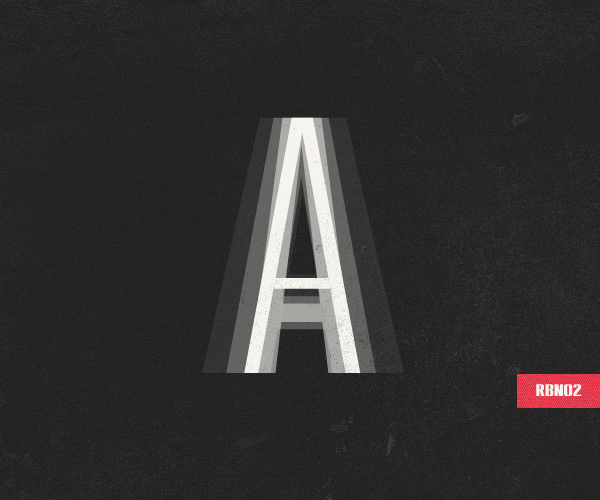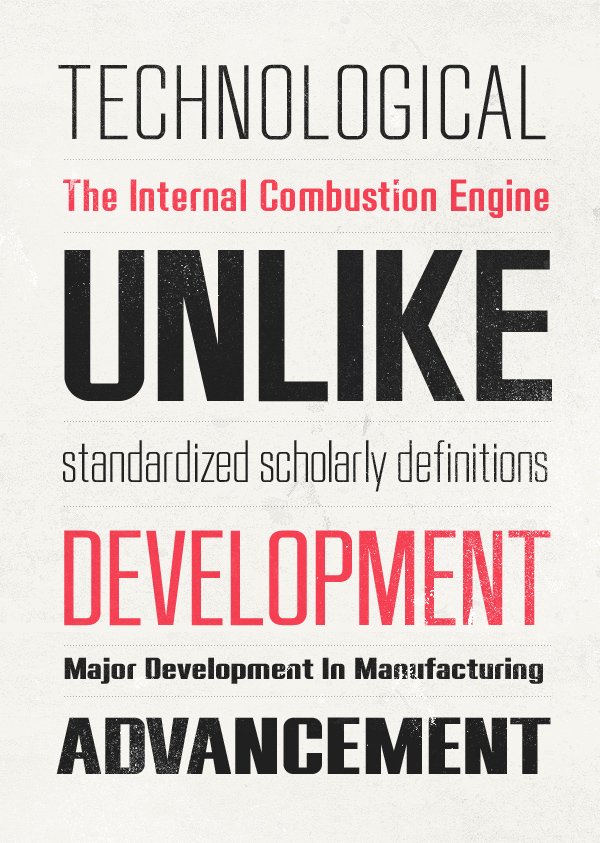
RBNo2 is a new gothic sans serif font designed by Rene Bieder for Fontfabric.
It is inspired by late 19th century industrial fonts with german roots regarding straightness and geometry. Combined with other sans serifs, slab serifs and serif fonts it catches the eye when used in headlines and short copy texts. Additonally to the regular styles the alternate versions will turn the font into a perfect partner for modern, technical and contemporary impressions as well as high quality, luxury and timeless environments.